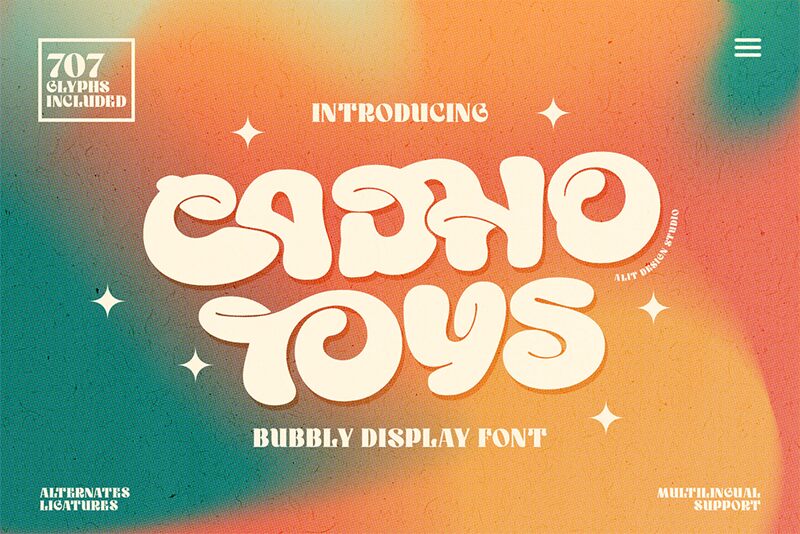
Cadho Toys, a playful and captivating display font crafted by Alit Design, exudes a delightful groovy charm. With its bold, fluid strokes and whimsical curves, this font emanates a sense of playfulness and vibrant energy, perfect for capturing the essence of imaginative and joyful designs.
The Cadho Toys font's unique character shines through in its distinct letterforms, which seamlessly blend organic shapes with a touch of retro-inspired flair. This font's versatility makes it an excellent choice for a wide range of projects, from children's products and toy packaging to energetic branding and eye-catching headlines.
Cadho Toys